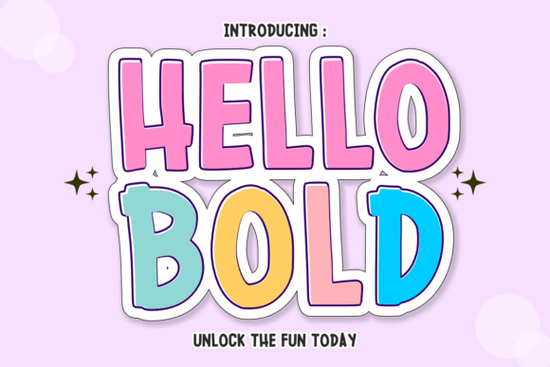
If you're looking for a display font that feels like a cheerful wave from a friendly neighbor, Hello Bold Font might be exactly what your next project needs. Designed with rounded edges and a gently bouncing baseline, it brings a hand-drawn warmth to everything from birthday invitations to classroom decor without sacrificing readability or ease of use.
This isn’t just another kids’ font with exaggerated quirks. Hello Bold strikes a practical balance: thick enough to stand out on t-shirts or posters, but clean enough to remain legible even at smaller sizes. Crafters who cut vinyl or heat-transfer material will appreciate how smoothly its shapes translate to physical media no tangled serifs or fragile strokes to worry about.
What makes Hello Bold work so well for kids’ designs?
Children respond to softness and rhythm. The slightly uneven baseline gives the letters a playful “bounce,” mimicking the natural energy of handwriting, while the uniform stroke width ensures consistency across words. It’s also all-caps by design, which simplifies layout decisions and keeps visual focus strong ideal for short headlines, labels, or name tags.
Compared to other playful fonts like Boogie Blast, which leans into retro disco vibes, or Momo, with its quirky letterforms, Hello Bold stays grounded in simplicity. That makes it more versatile for everyday use whether you’re making a nursery wall decal or custom party favors.
Who should consider using this font?
- Print-on-demand sellers creating kids’ apparel, mugs, or tote bags Hello Bold’s bold weight prints cleanly and photographs well online.
- Teachers and homeschoolers designing flashcards, reward charts, or classroom signs that need to be both fun and functional.
- Small business owners running children’s boutiques, bakeries, or activity centers who want branding that feels approachable but not childish.
- Papercrafters and Cricut users who need fonts that cut reliably without tiny details getting lost.
It pairs especially well with minimal sans-serifs for body text or subtle script accents for contrast. And because it’s designed specifically as a display font, you won’t be tempted to use it for paragraphs which helps maintain professional-looking results even in casual projects.
How does it compare to similar playful fonts?
Fonts like Victim Playful offer more exaggerated distortions and irregular spacing, great for comic-style graphics but less suited for clarity-focused applications. Meanwhile, Vespa brings a mid-century charm with tighter letterforms, whereas Hello Bold opts for open, airy spacing that breathes better on busy backgrounds.
And if you’ve used Banana Bogart before known for its wobbly, cartoonish flair you’ll find Hello Bold more restrained. It’s still joyful, but in a way that doesn’t overwhelm. Think of it as the reliable friend who shows up with cupcakes and good advice, not the one who arrives wearing neon face paint and a kazoo.
Tips for getting the best results with Hello Bold
Because of its bold nature, avoid using it in very small sizes (below 18pt in print or 16px on screen) where the letterforms might blur together. Also, give it room to shine pair it with plenty of white space or soft background colors rather than competing patterns.
If you’re using it for cutting machines, test a single letter first to confirm blade depth settings. Its smooth curves usually require less weeding than intricate fonts, but material thickness can affect outcomes.
Finally, remember that display fonts like this are meant for emphasis, not body copy. Use Hello Bold for names, titles, or short phrases and let simpler fonts handle the rest.